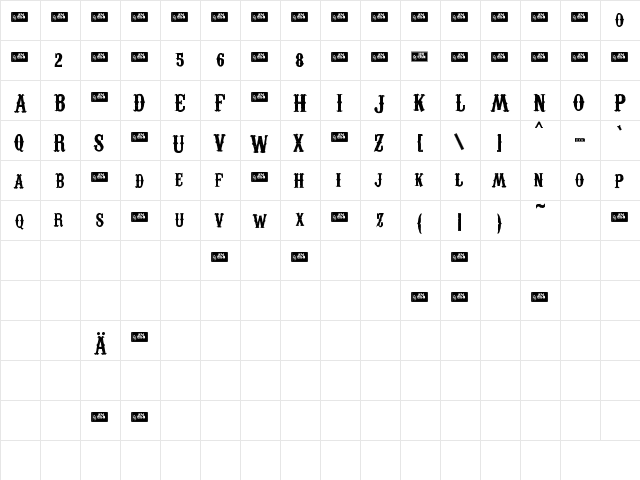
Carnivalee Freakshow Demo Regular
Design Context for Carnivalee Freakshow Demo Typeface
Carnivalee Freakshow Demo is a composed and adaptable typeface that performs quietly and consistently across a wide range of design contexts.